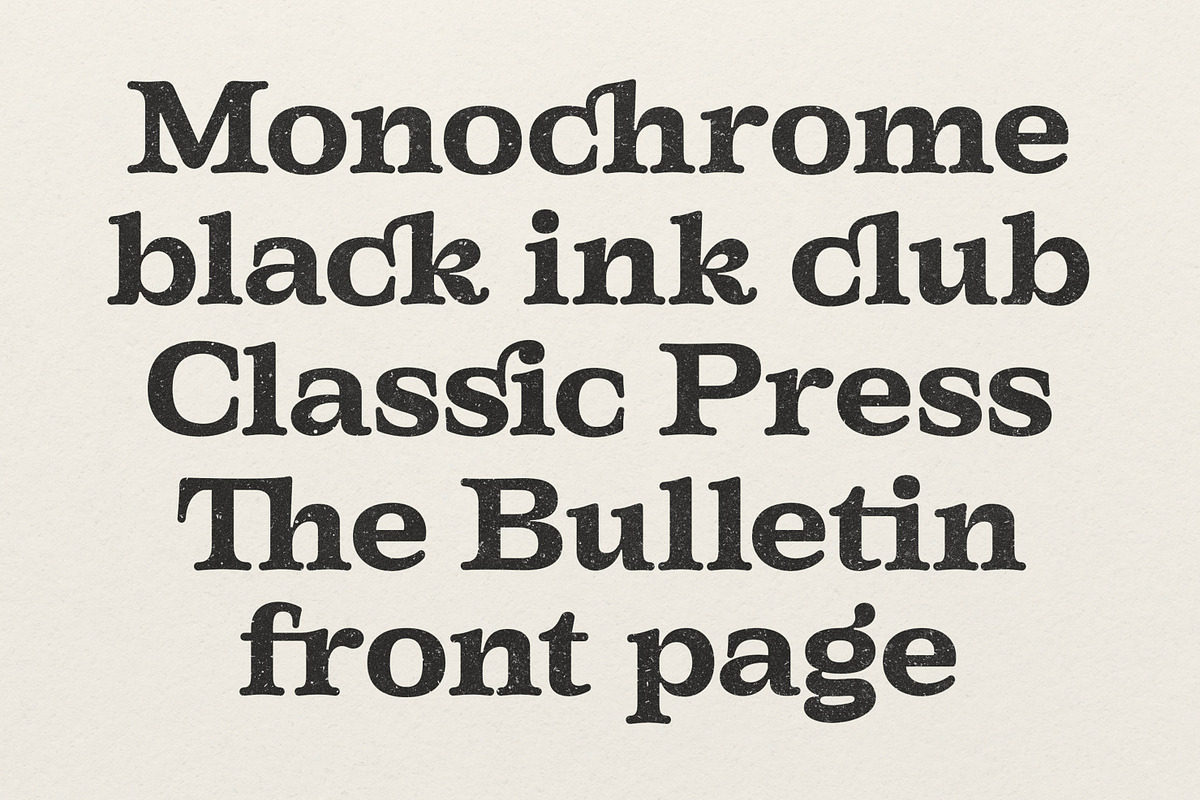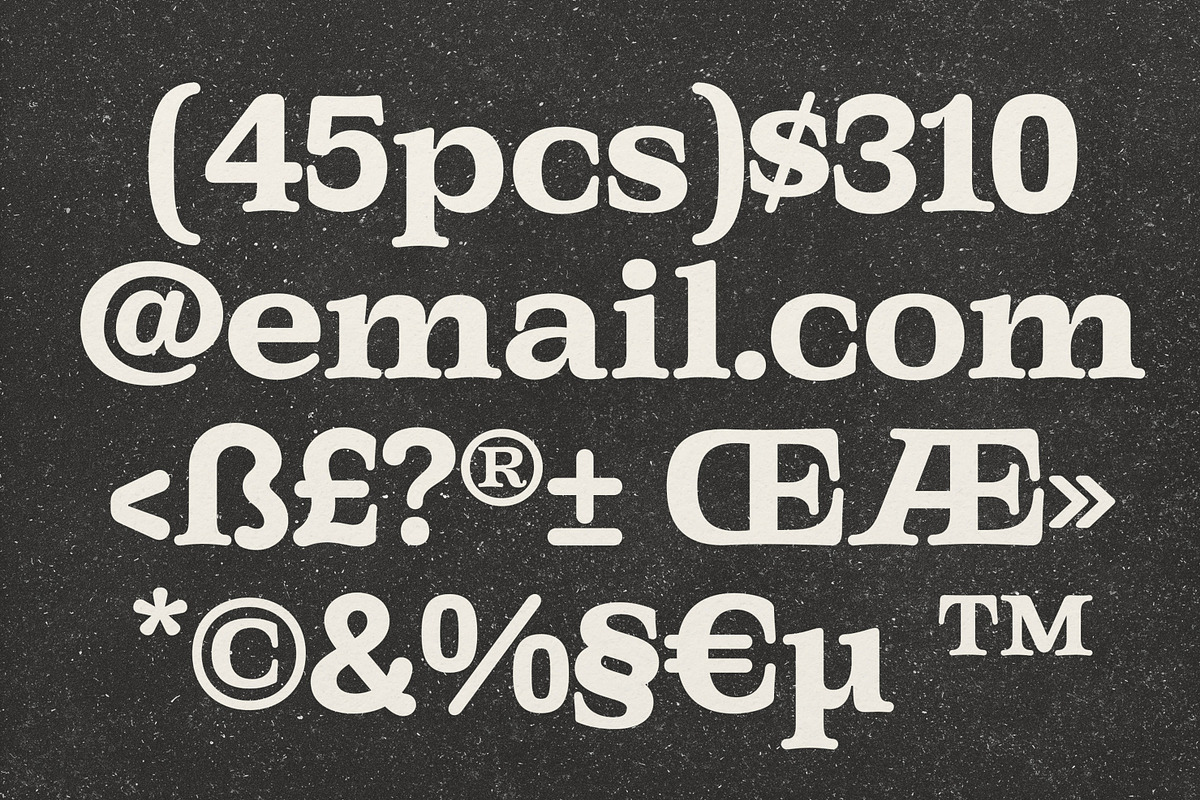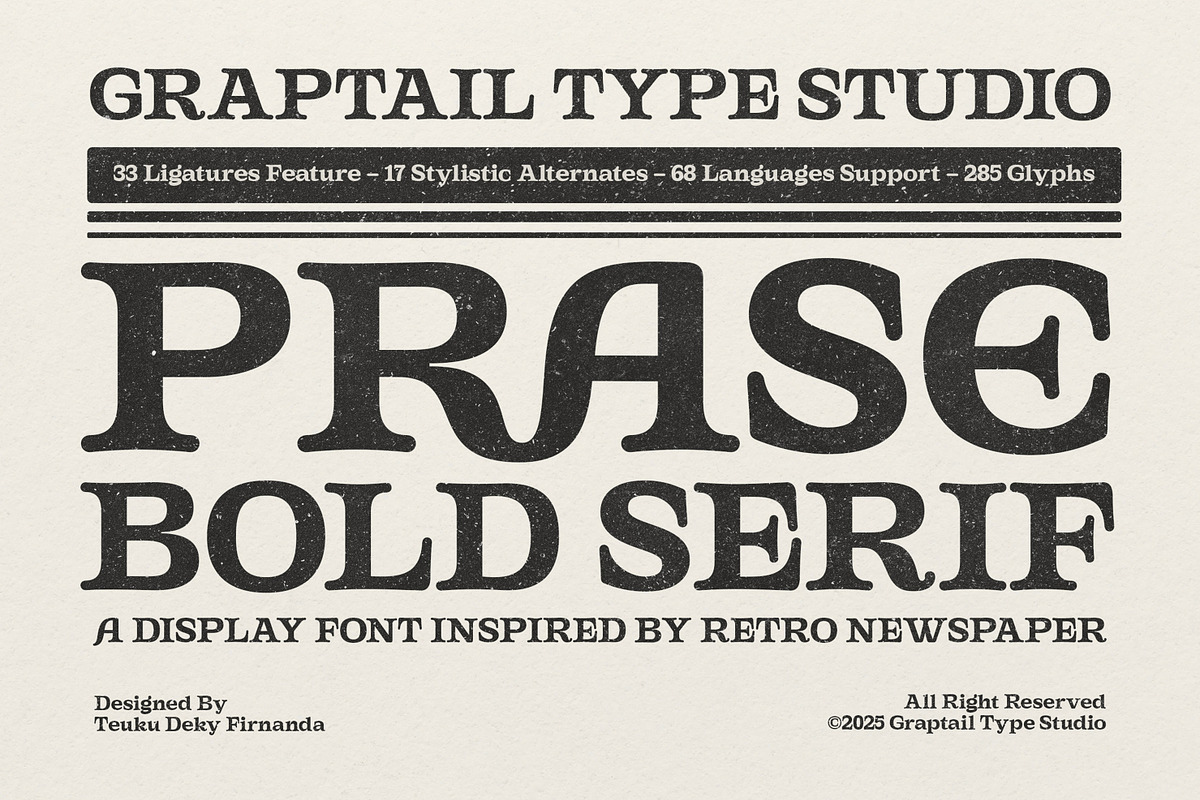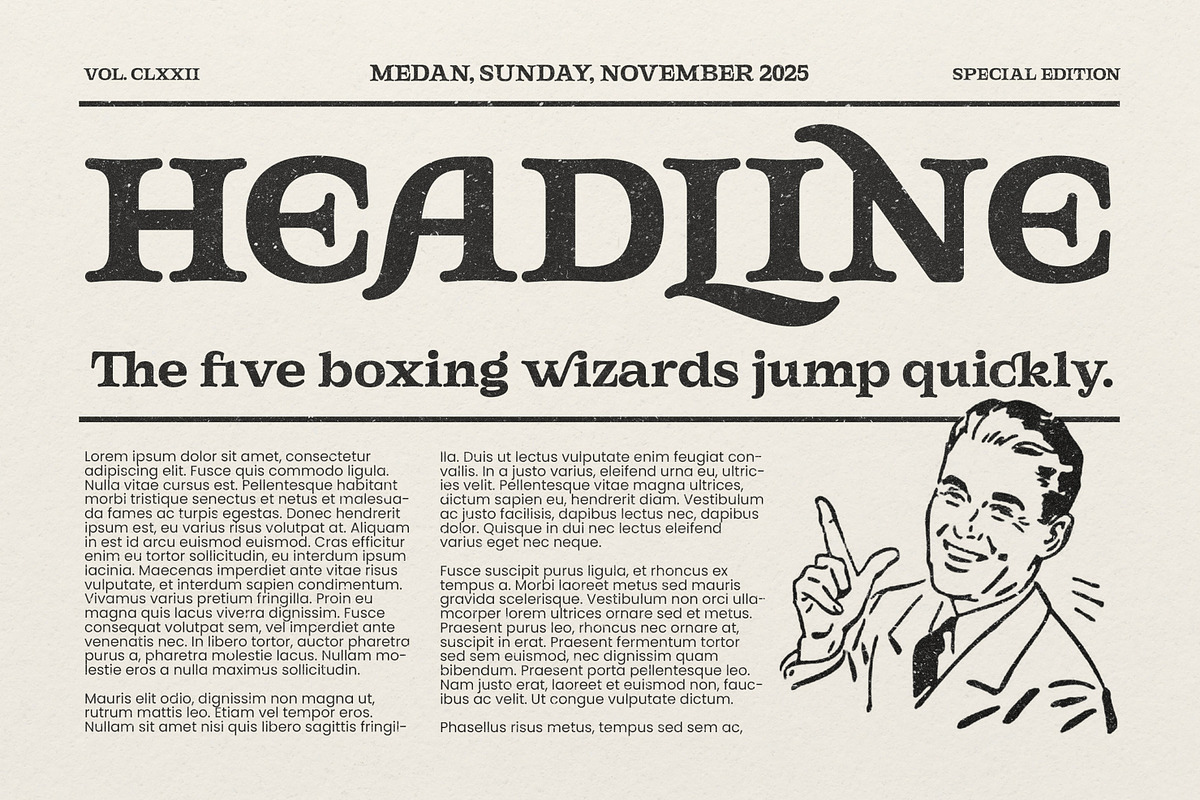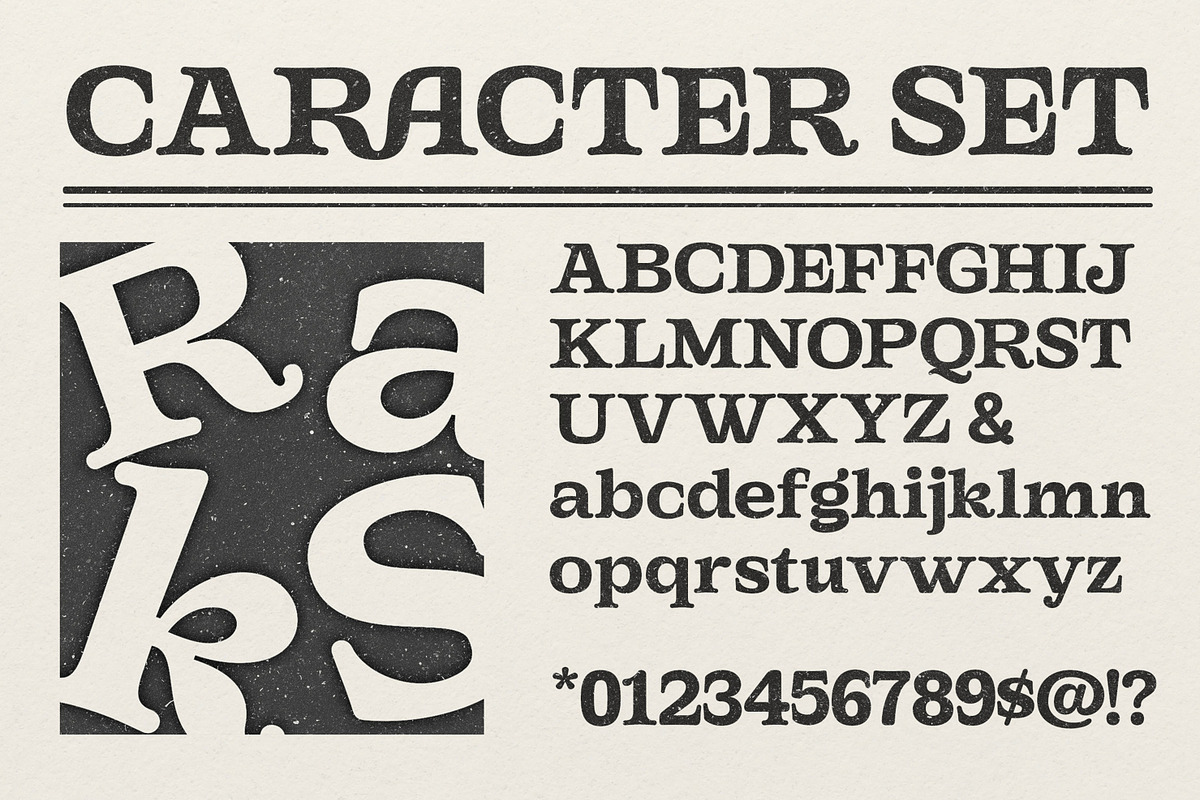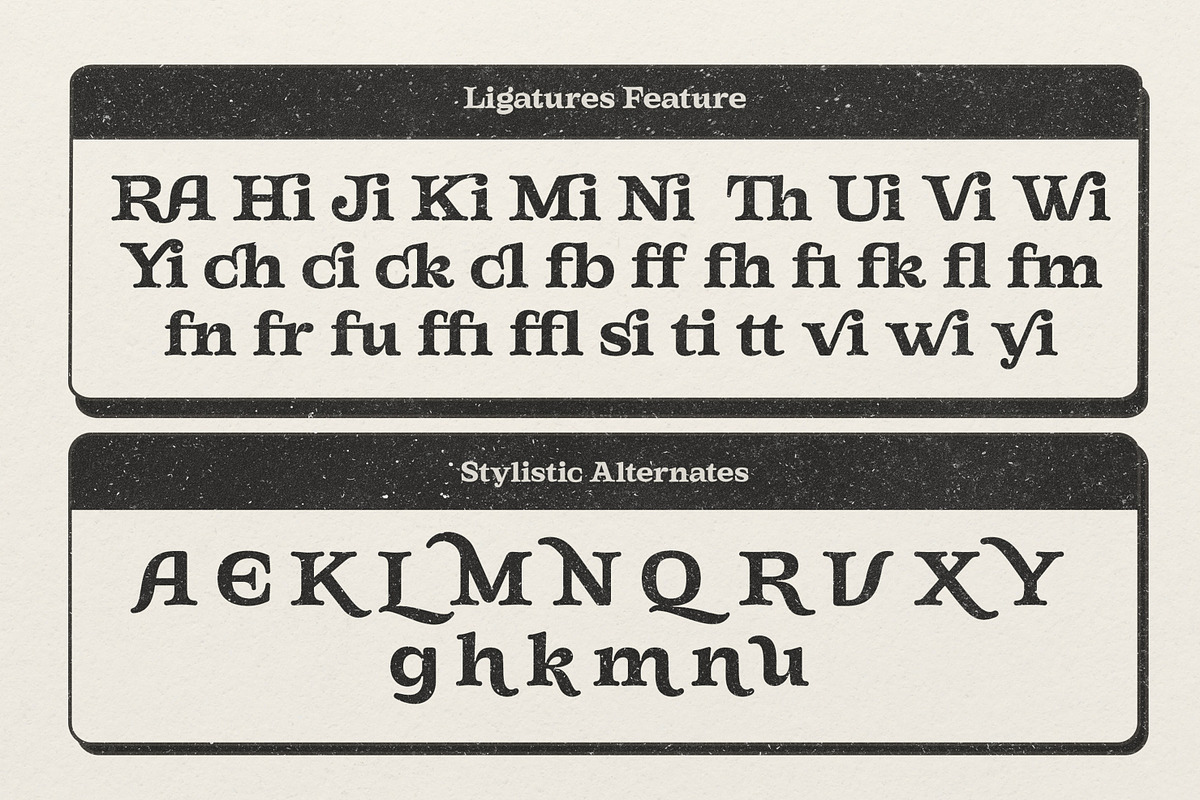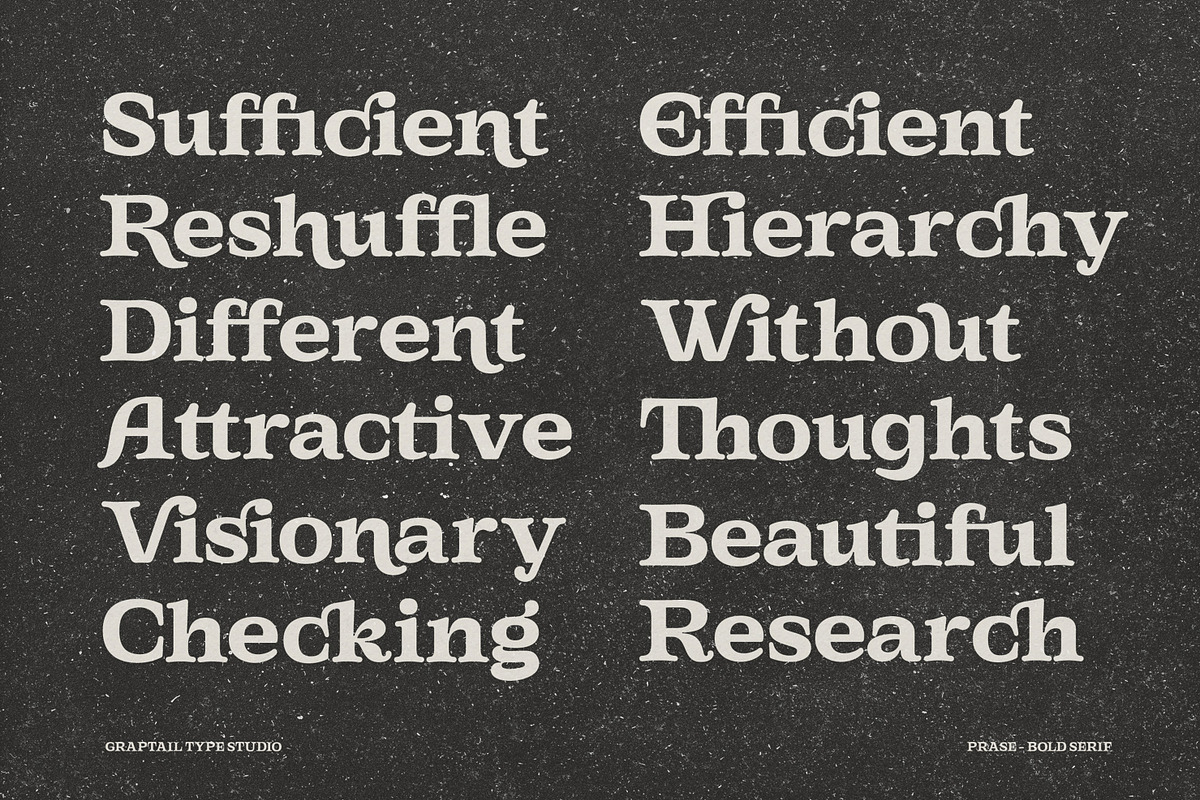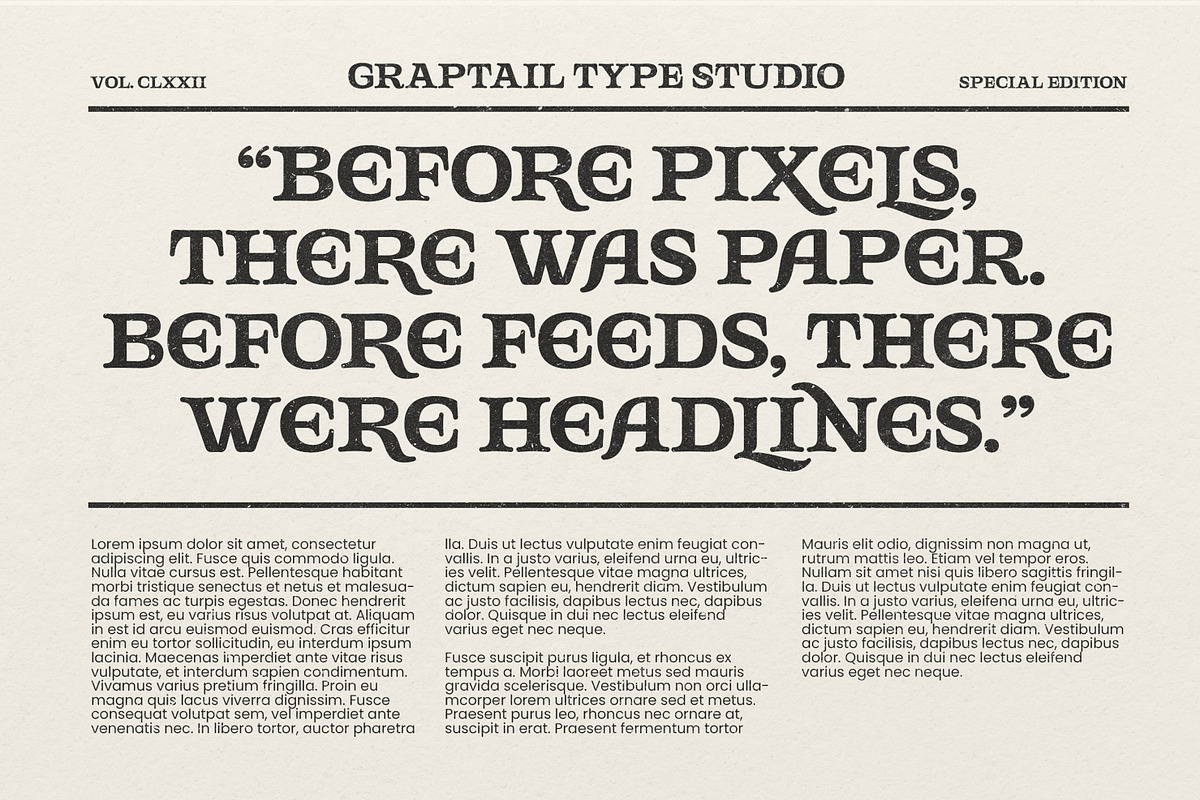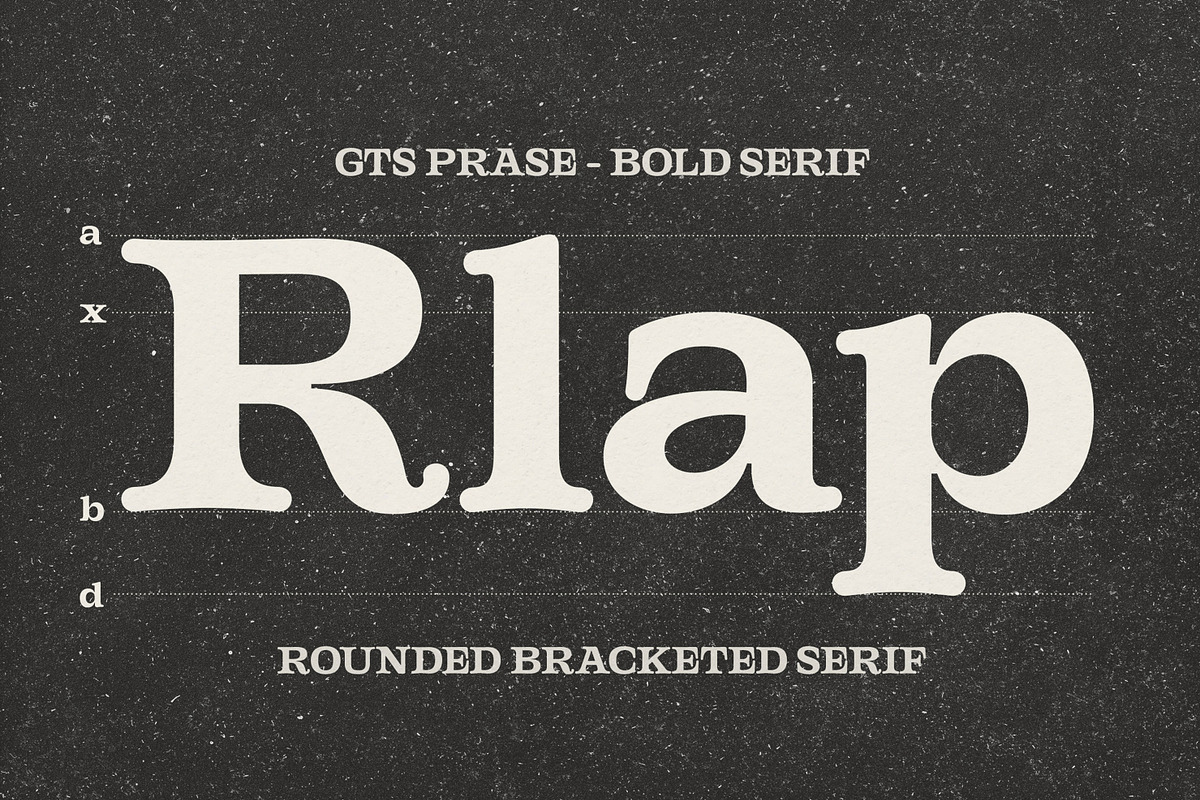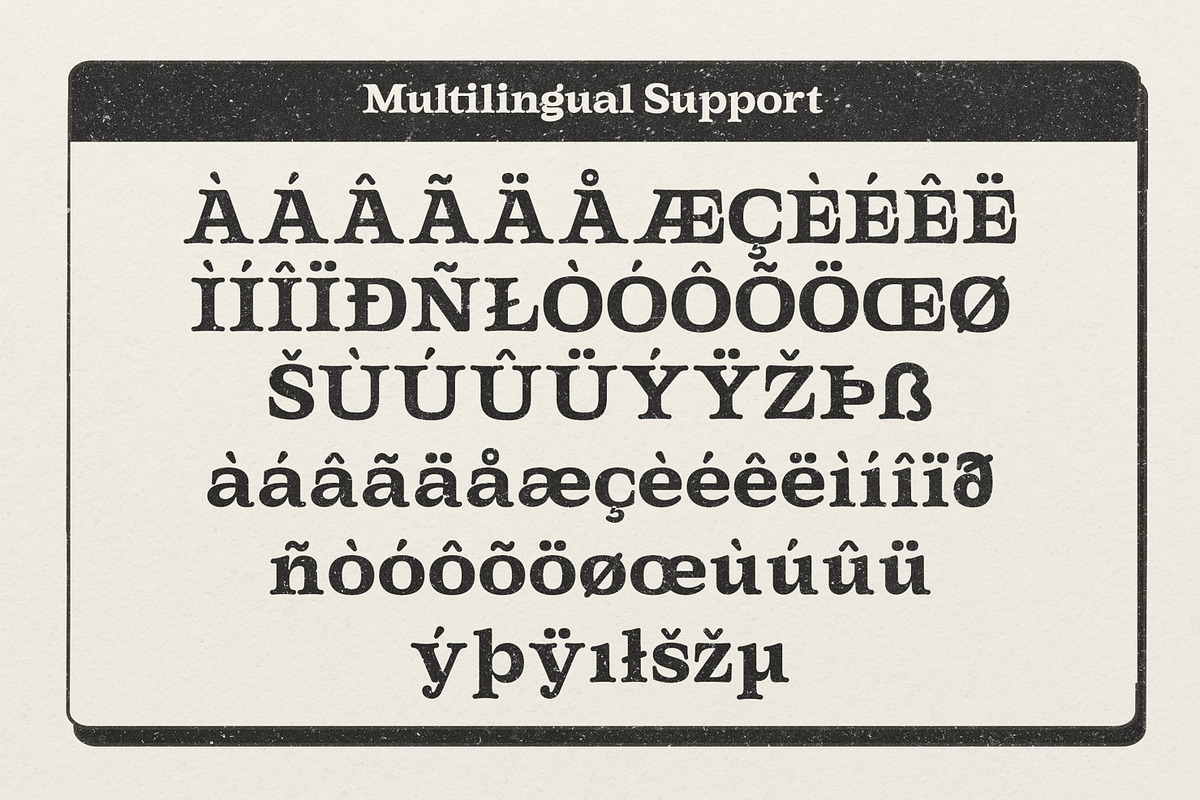
Gts Prase - Bold Serif
Gts Prase – Bold Serif is a strong, character-driven serif typeface inspired by the newspaper lettering of the 80s and 90s. It captures the bold, compact, and slightly textured feel of vintage print, bringing an authentic editorial touch to modern design needs.
Equipped with 33 Ligature Features and 17 Stylistic Alternates, Gts Prase offers wide creative flexibility—perfect for crafting expressive titles, impactful headlines, and visually rich layouts. Every letterform is designed to deliver a strong rhythm and a refined retro aesthetic.
Perfect for: • Newspapers & editorial layouts • Packaging design • Film titles & opening sequences • Posters, covers, and promotional materials • Merch and T-shirt designs • Branding with a retro personality
With its bold presence and confident serif structure, Gts Prase – Bold Serif brings the timeless charm of classic print typography back into your creative projects.